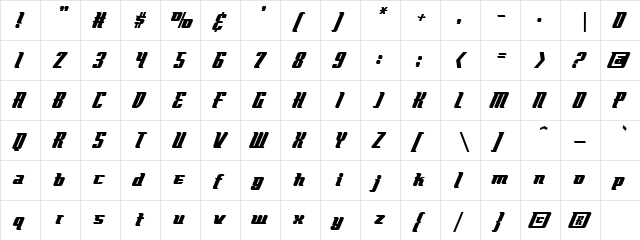
Flyboy BB Regular
| Foundry | Nate Piekos. Blambot.com |
| Designer | Nate Piekos |
Design Context for Flyboy BB Typeface
Flyboy BB offers clean, dependable letterforms without strong stylistic allegiance, making it a practical choice for designers who need flexibility.